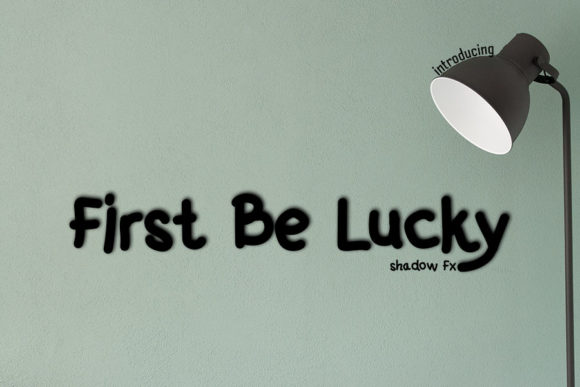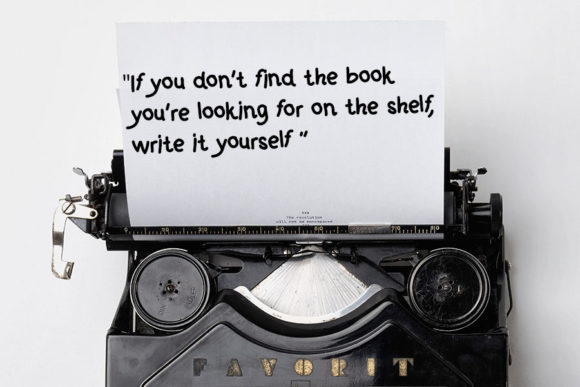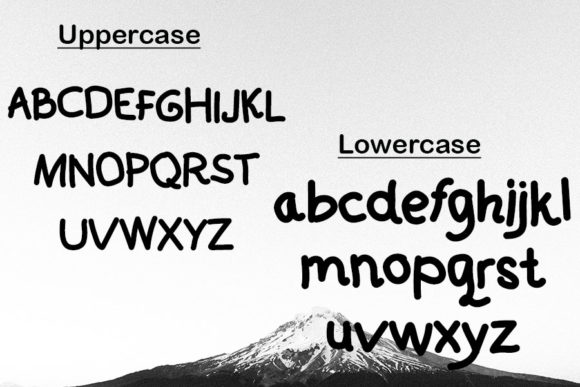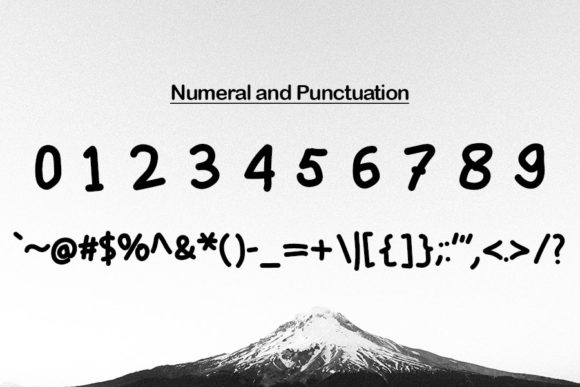
First Be Lucky
About First Be Lucky Font
First Be Lucky is an incredibly unique display font. Masterfully designed to become a true favorite, this font has the potential to bring each of your creative ideas to the highest level!